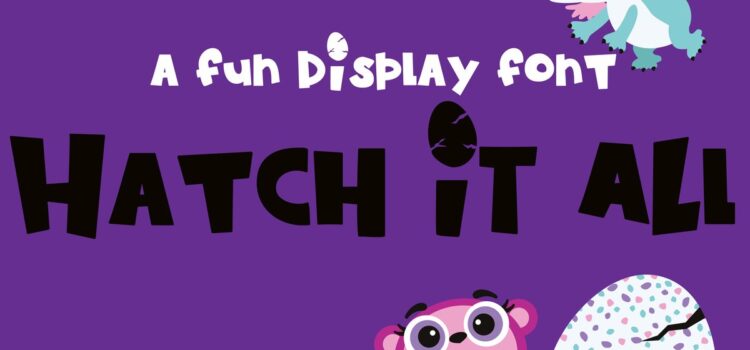
Hatch-it-all Font – Free Download Introduction to Hatch-it-all Font Hatch-it-all is a cute, blocky font has a big, cracked egg for the dot of the lowercase “i”. 📸 Preview Gallery 5 images 📌 Product Name Hatch-it-all Font 👤 Author Illustration